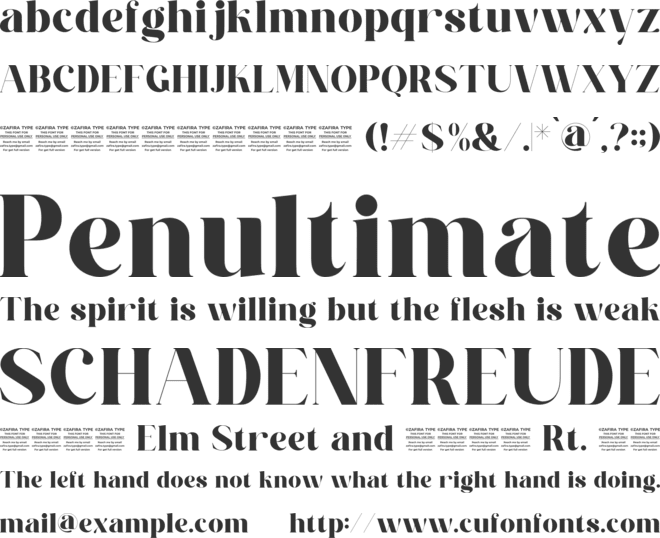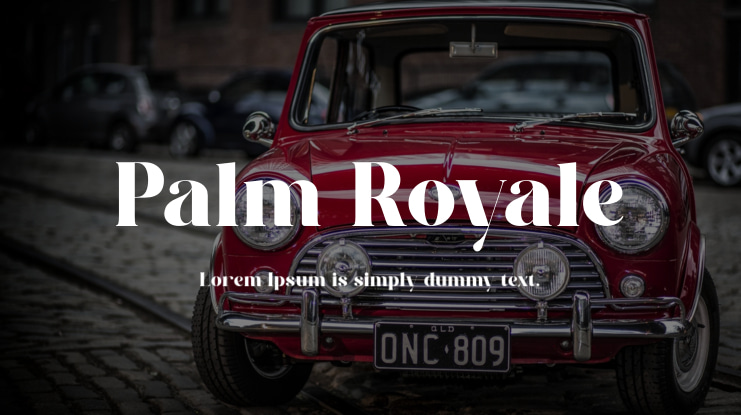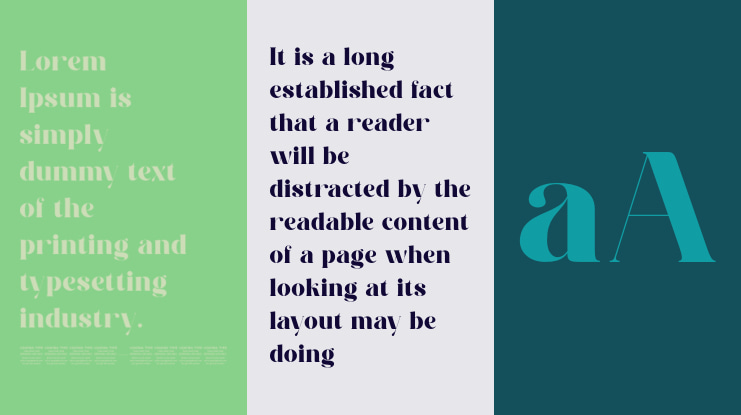
Palm Royale Font
Meet Palm Royale, a serif font that blends timeless sophistication with a modern aesthetic. Featuring sleek and strong lines, this font exudes luxury and refinement in any design. Whether for print or digital projects, Palm Royale conveys a sharp and sophisticated message. Its regal presence adds an exclusive and striking touch to any design endeavor.